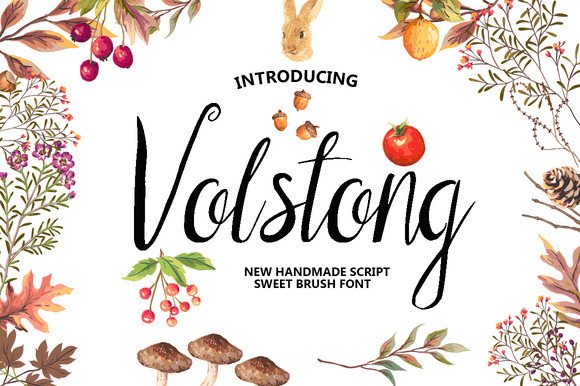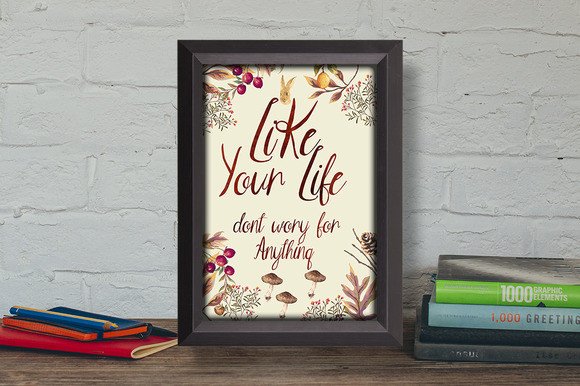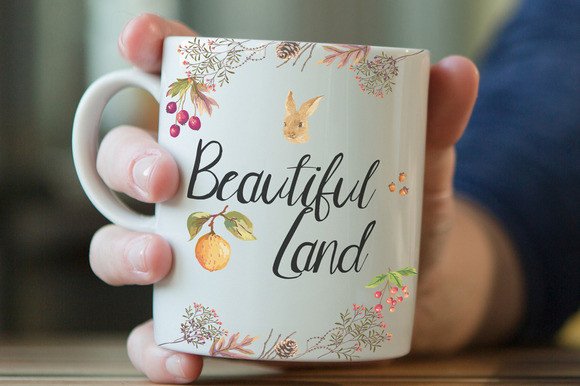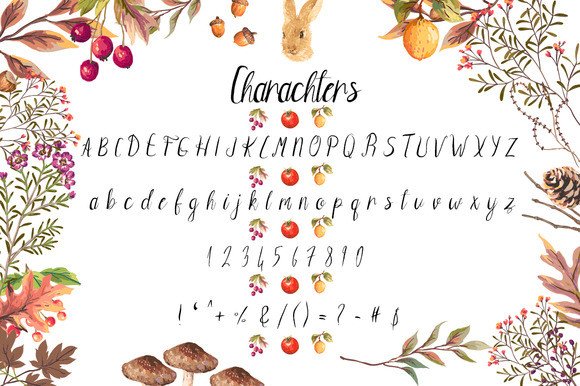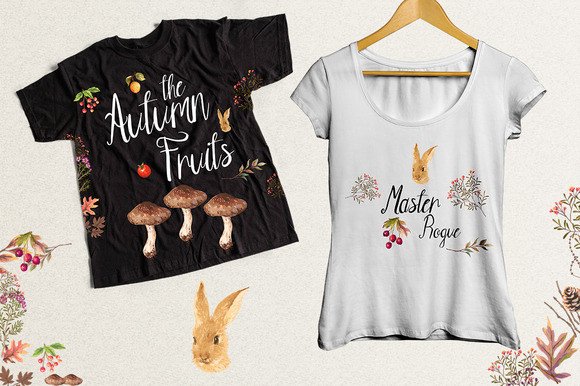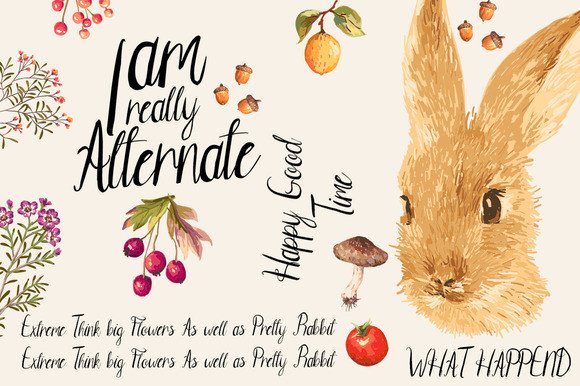
Volstong Font
About Volstong Font
Volstong is a new handmade sweet brush font and can be used perfectly for wedding invitations, birthday cards, posters, cafes, t-shirts, and much more.